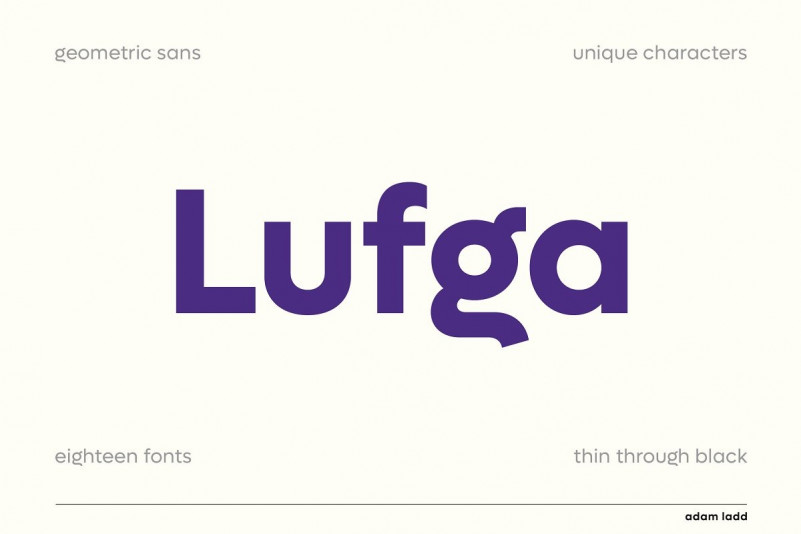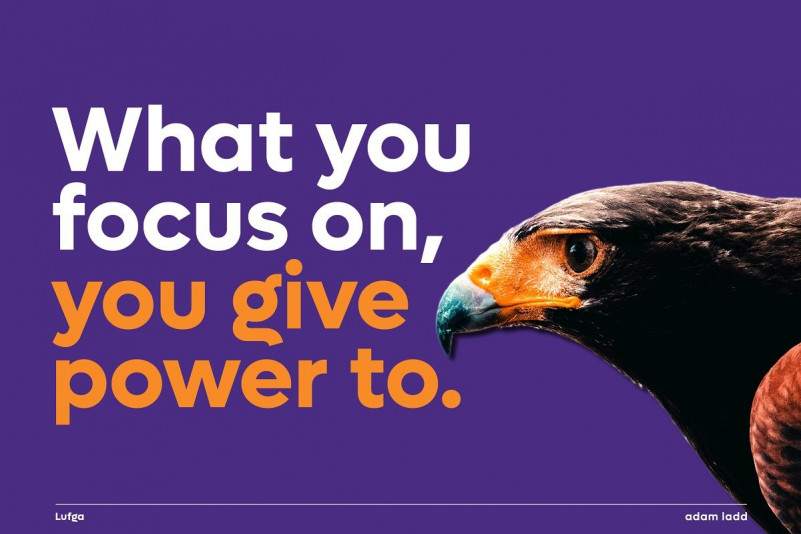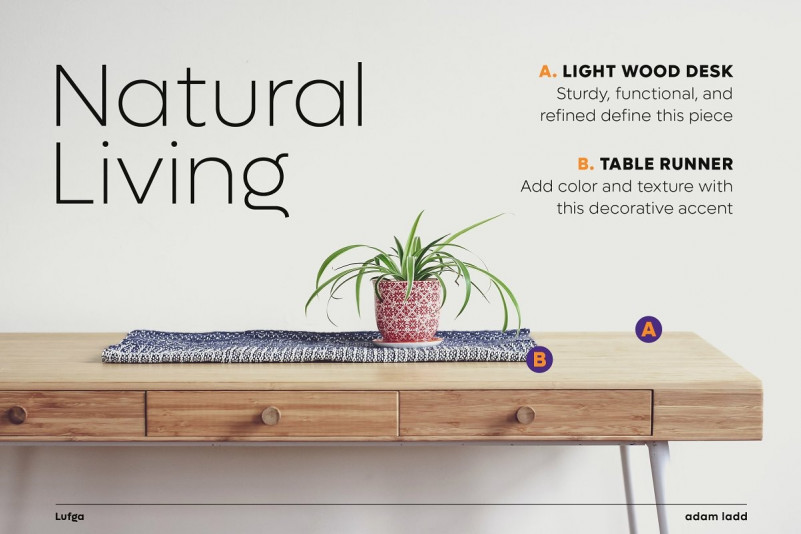
Lufga Font
Lufga is a geometric sans serif font family with unique characters for a touch of distinction. Simple yet sophisticated, this typeface design gives a clean and modern appearance while carrying some almost retro tones. Most notably, the lowercase g and u make it recognizable for your branding applications, and there are also stylistic alternates to help give a little different presentation when needed.
With a minimal design, low contrast, large x-height, and thin through black weights (with italics), Lufga is well suited as both a workhorse text and display font for branding, advertising, packaging, headlines, magazines, websites, logo designs, and more.